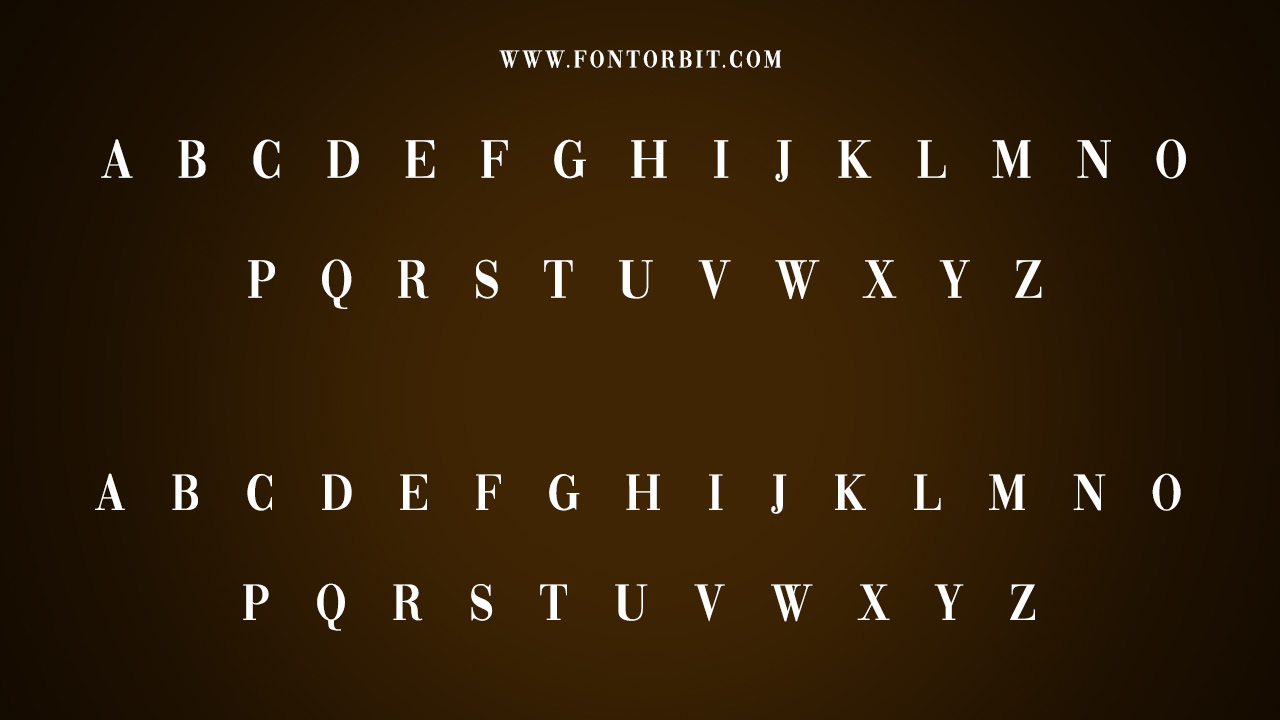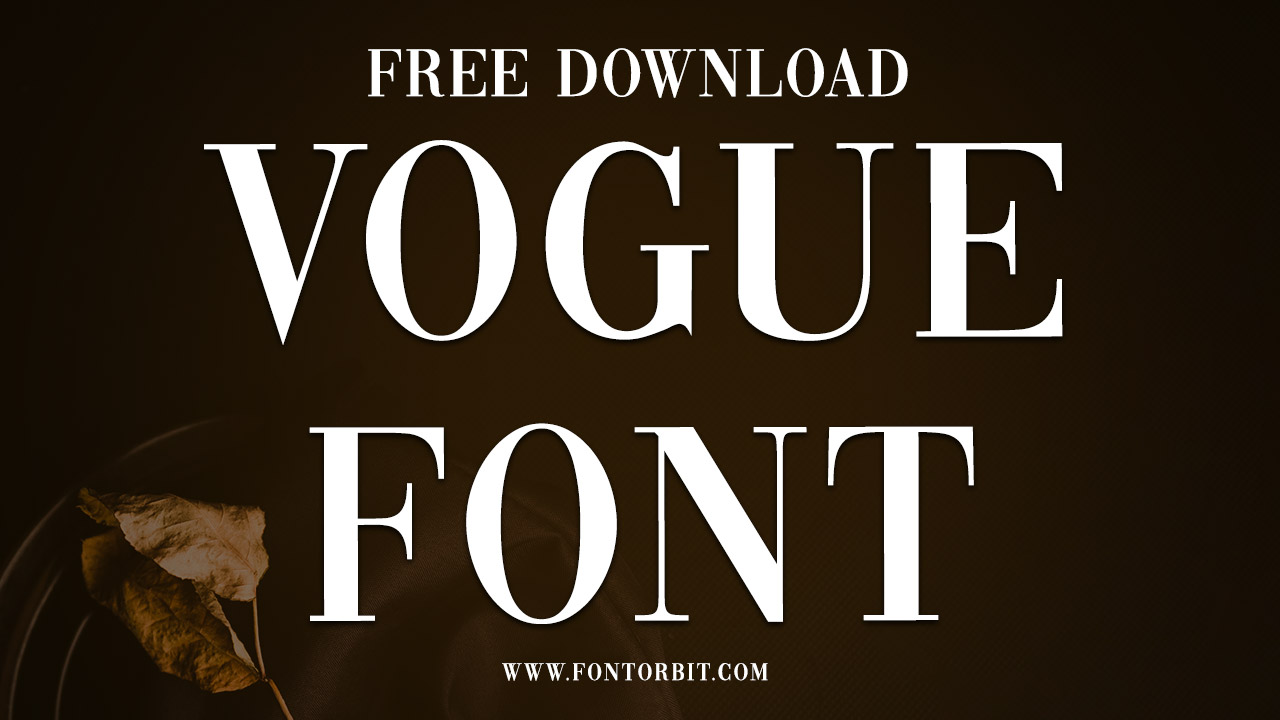
The Vogue Font, designed by Vladimir Nikolic, exudes elegance and sophistication with its stylish, fashion-inspired design. This font is reminiscent of the iconic Vogue magazine logo, capturing a sense of high fashion and refinement. Ideal for headlines, logos, and creative designs, Vogue Font brings a touch of glamour to any project.
The Vogue Font Family
a. Vogue Regular
- Covers
- Fashion and Beauty Projects
- Creative Designs
The Vogue Font is perfect for projects that require a touch of class and sophistication. Its refined design is ideal for high-impact headlines, elegant logos, and stylish covers. It’s a versatile choice for fashion and beauty-related designs.
Vogue Font is a chic and sophisticated typeface inspired by the iconic Vogue magazine logo. Its compatibility with various devices ensures that you can easily incorporate it into your projects for a polished and professional finish.
1.What Is The Vogue Font?
The Vogue Font is an elegant and fashion-forward typeface designed by Vladimir Nikolic, inspired by the iconic Vogue magazine logo.
2.What Fonts Are Similar To Vogue Sans Regular?
Fonts similar to Vogue Sans Regular include Didot, Bodoni, Playfair Display, Montserrat, and Futura.
3.What Are The Key Features Of The Vogue Font?
The font features a stylish and sophisticated design, ideal for creating high-impact headlines, logos, and elegant designs.
4.How To Use Vogue Font In Branding?
Use it to create memorable and fashionable logos, stylish covers, and impactful posters that reflect a high-fashion aesthetic.
5.What Are The Alternatives To The Vogue Font?
Similar fonts include Didot, Bodoni, and Playfair Display, which offer refined and elegant styles suitable for high-fashion and sophisticated designs.